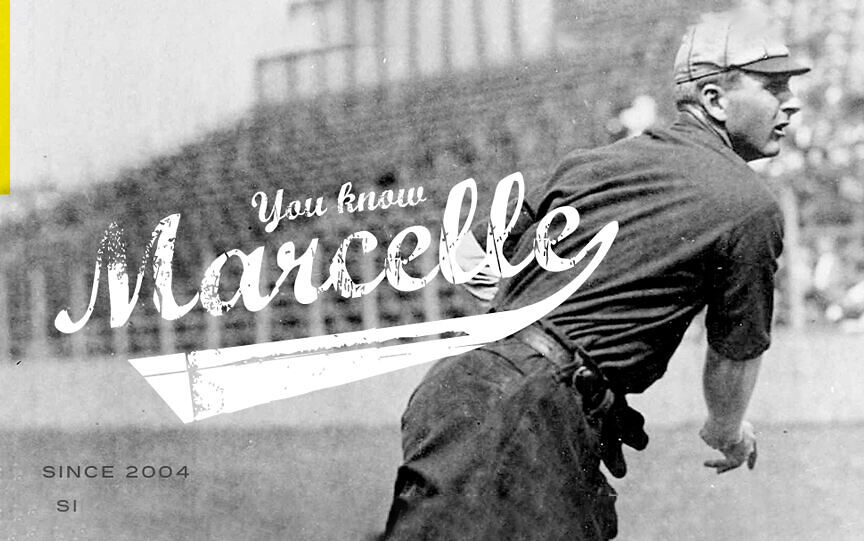
Marcelle Font
Marcelle is an old school script font with a rusty look. It comes with many swashes to create your own signature.
Designed by: StereoType